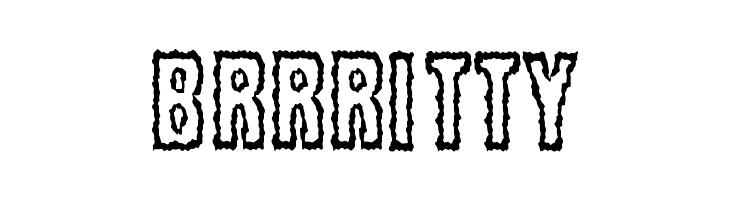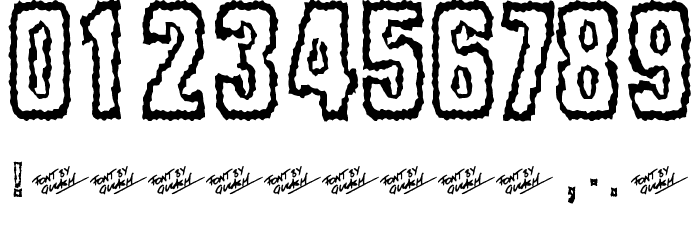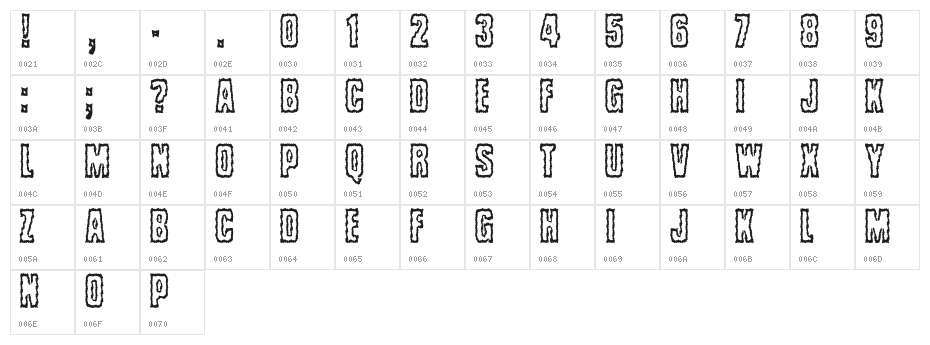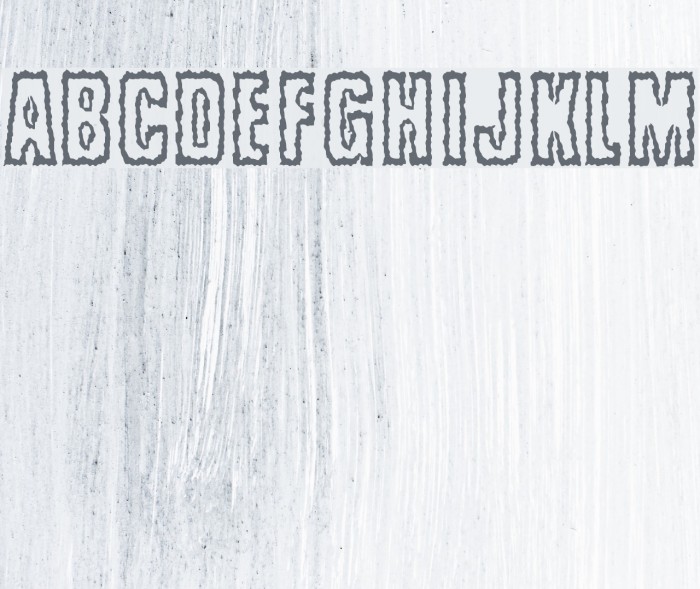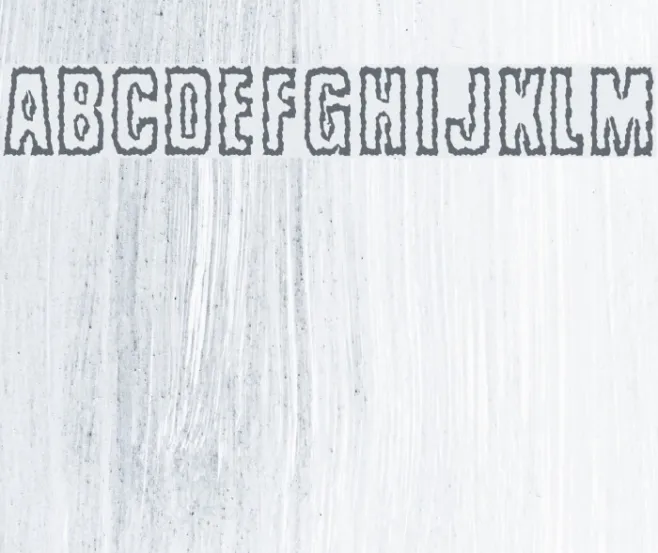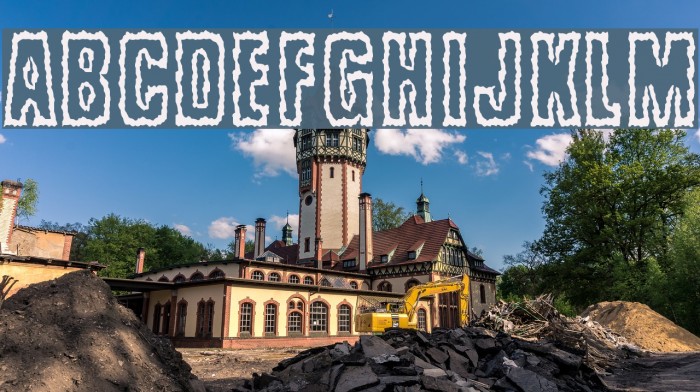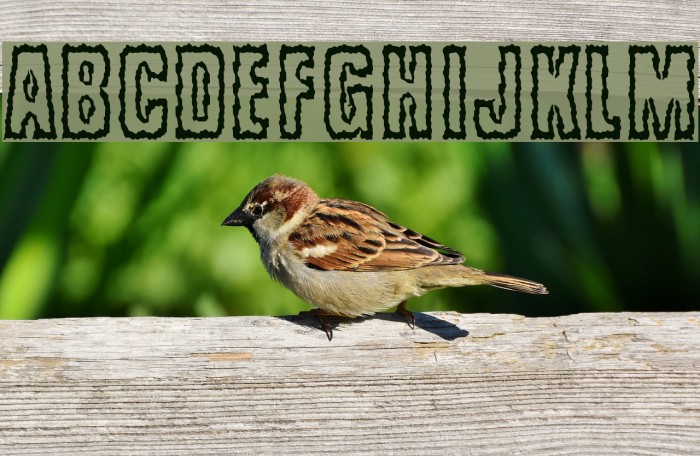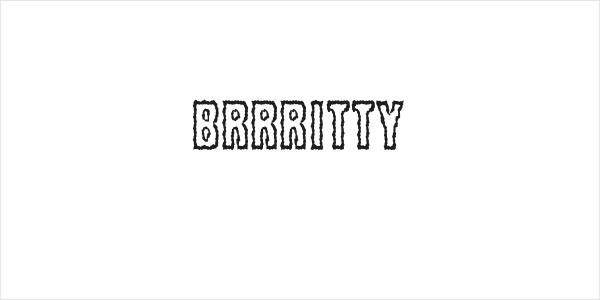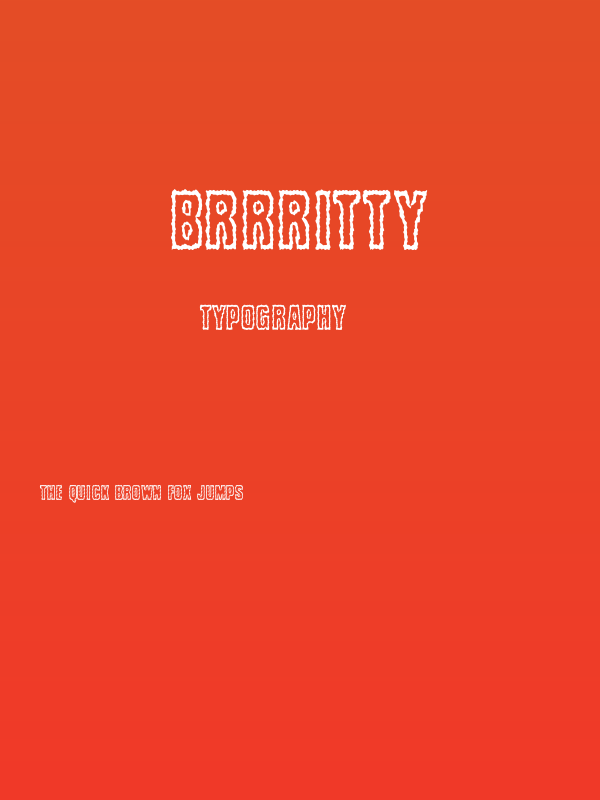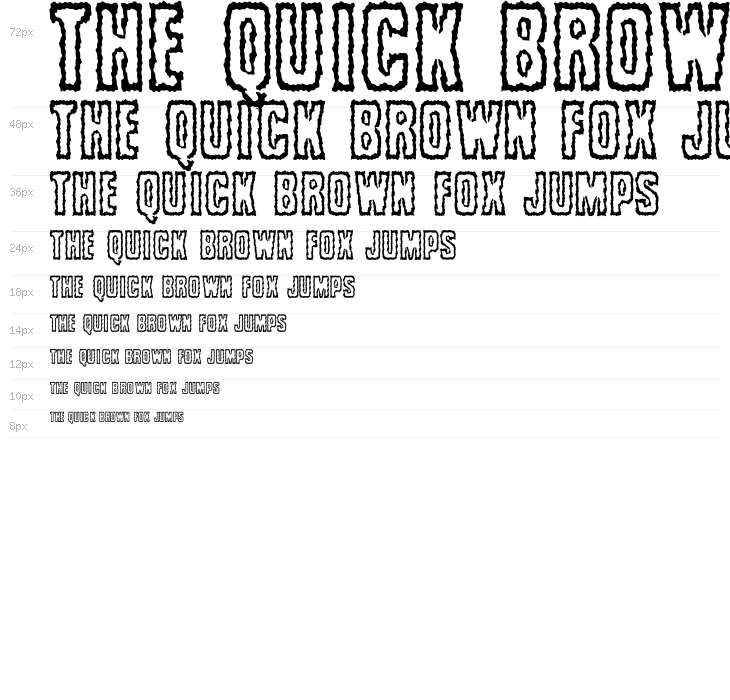
Brrritty Font
Brrritty Description
This font features a bold, rugged design with a textured, irregular outline that gives it a dynamic and edgy appearance. The characters are uppercase and lowercase, with numbers and a selection of special characters. Each letter is distinct, with a rough, hand-drawn quality that adds a sense of movement and energy. The font's unique style makes it stand out, ideal for projects that require a strong visual impact. Its playful yet bold nature can be used to convey a sense of fun and creativity.